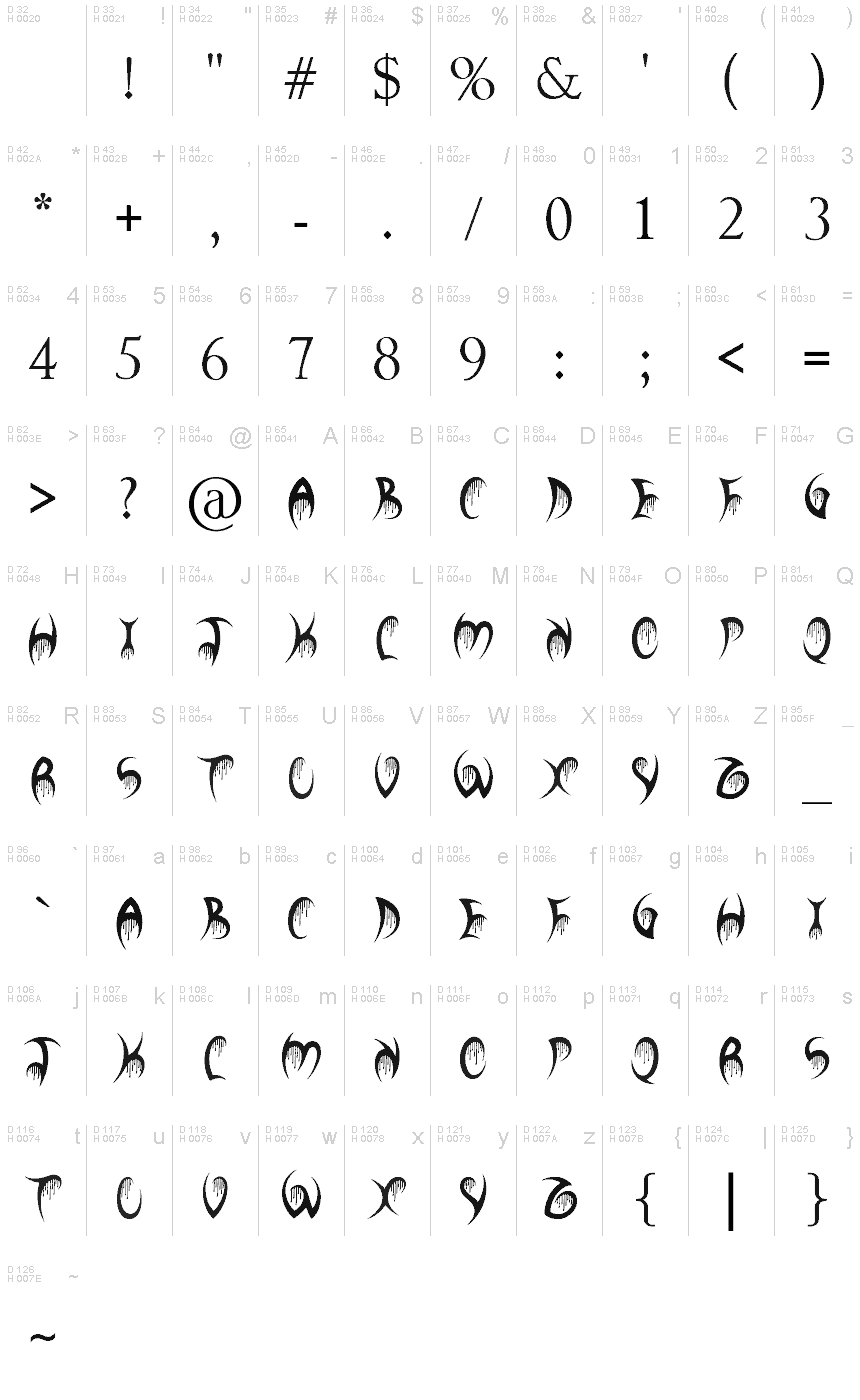
Your Bloody Choice
Your Bloody Choice, a spine-chilling creation by TattooWoo.com, embodies the eerie essence of Halloween in its semi-light and semi-condensed form. Each character drips with gothic influence, evoking the thrill of horror with every stroke. This font's distinctive style is characterized by hauntingly beautiful drips that mimic blood or haunting shadows, making it an impeccable choice for projects that require a touch of the macabre.
The aesthetic appeal of Your Bloody Choice lies in its unique blend of terror and artistic flair. Its semi-condensed width allows for impactful use in tight spaces without losing legibility, while the semi-light weight ensures that the font retains an ethereal yet menacing presence on the page.
Whether you're designing invitations for a haunted house event, creating graphics for a horror-themed game, or setting up branding for a Halloween-centric campaign, Your Bloody Choice sets the tone with its ghoulish charm. Its potential stretches across digital landscapes and printed paraphernalia alike—wherever there's a need to invoke the spirit of Halloween through typography.